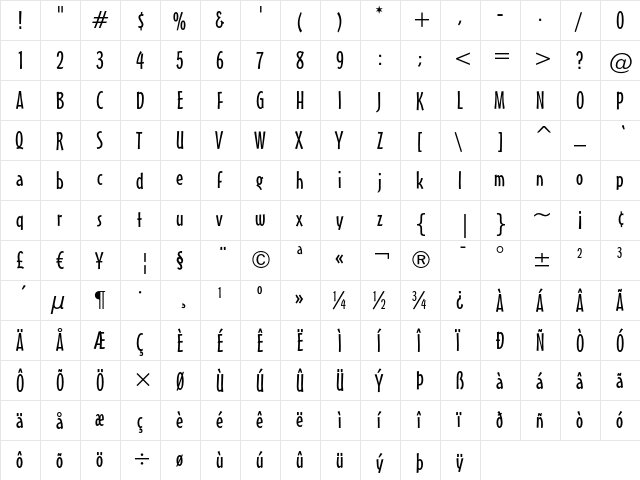
Mister Earl Light
Design Context for Mister Earl Typeface
Mister Earl is a composed and adaptable typeface that performs quietly and consistently across a wide range of design contexts. The delicate stroke weight brings airiness and refinement to layouts.